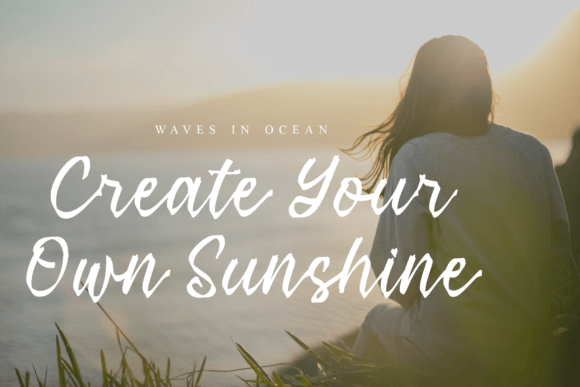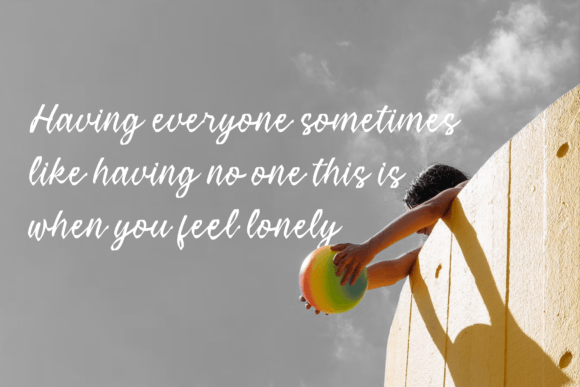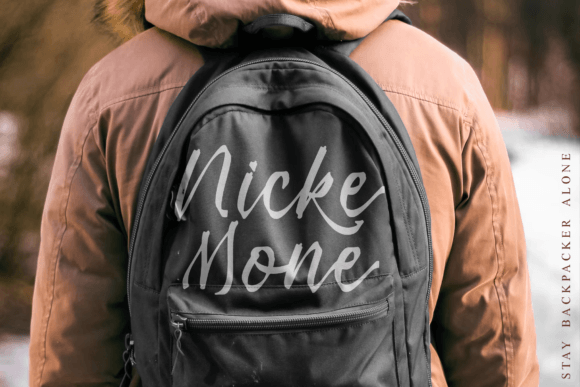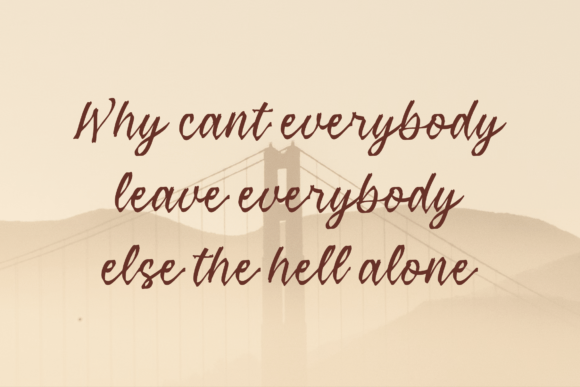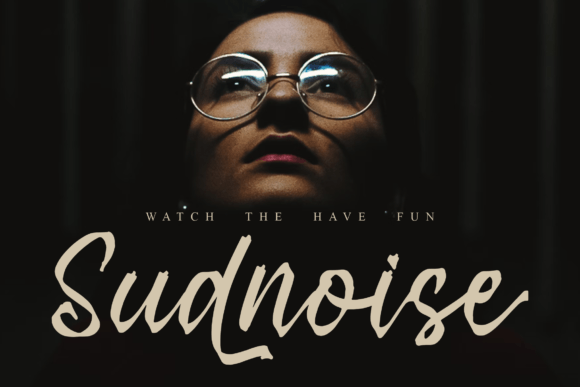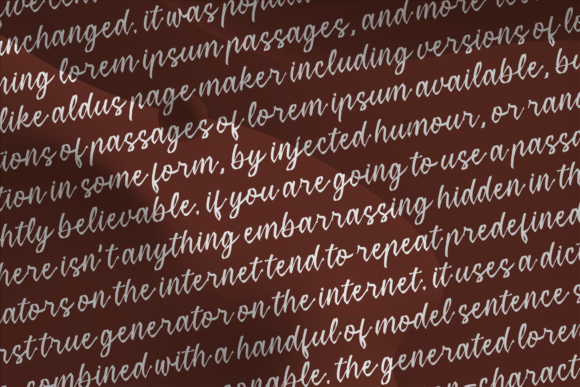
Introduction to Jakemont Moodnice Font
Jakemont Moodnice is a lovely and timeless handwritten font.
It is the best choice for creating eye-catching logos, branding, and quotes Every letter has a unique and beautiful touch, making your design come alive.
Key Features of Jakemont Moodnice Font
Why Choose Jakemont Moodnice Font?
Jakemont Moodnice Font offers exceptional quality and versatility, making it a valuable addition to your design toolkit. Whether you’re creating for personal projects or commercial use, Jakemont Moodnice Font delivers professional results.